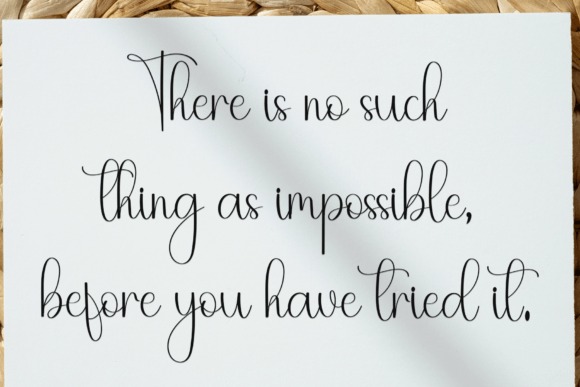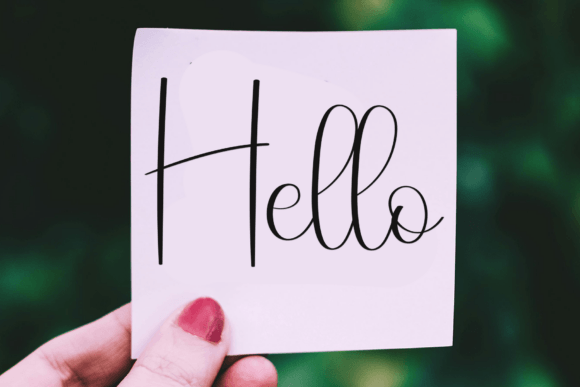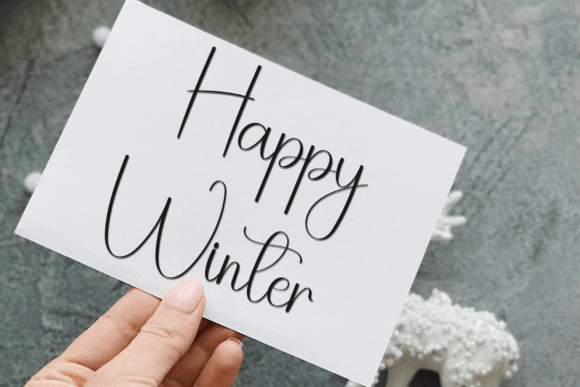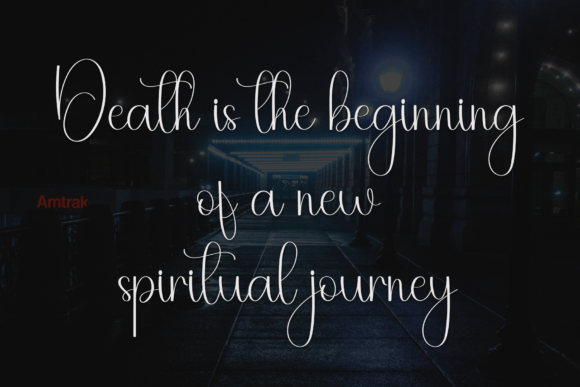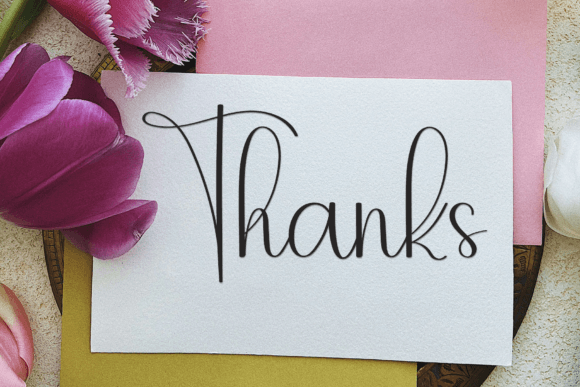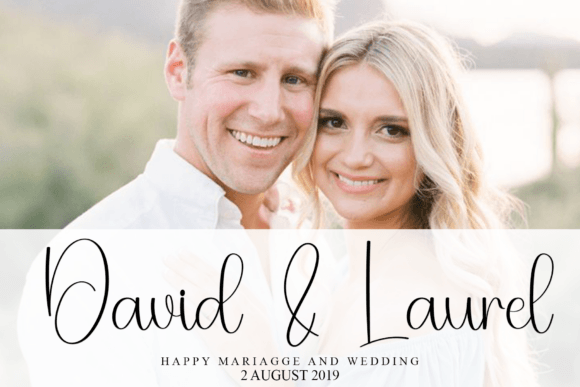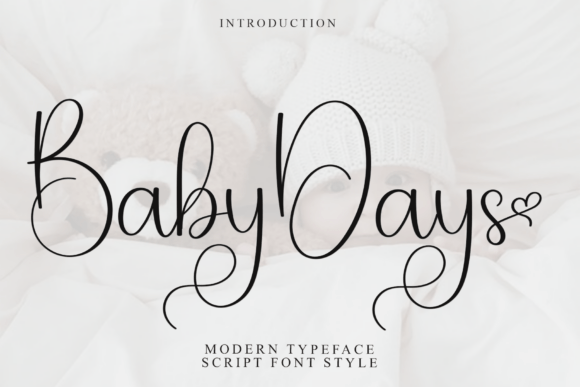
Baby Days Font: The Perfect Addition to Your Design Projects
Are you looking for a font that can add a touch of warmth and playfulness to your design projects? Look no further than Baby Days Font. This adorable, handwritten script font is perfect for designers and crafters who want to create projects that exude a lighthearted and sweet feel.
What is Baby Days Font?
Baby Days Font is a cute, handwritten script font with soft, flowing letters. Its playful and sweet feel makes it an ideal choice for projects that require a personal touch. Whether you’re designing a baby shower invitation, a nursery decor, or a children’s book, Baby Days Font is sure to bring a smile to your audience’s faces.
Characteristics of Baby Days Font
Baby Days Font has several characteristics that make it a standout font:
- Handwritten script: Baby Days Font has a beautiful, handwritten script that gives it a personal and unique feel.
- Soft and flowing letters: The font features soft, flowing letters that are smooth and elegant.
- Playful and sweet feel: Baby Days Font has a playful and sweet feel that makes it perfect for projects that require a lighthearted touch.
- Easy to read: Despite its playful feel, Baby Days Font is easy to read, making it suitable for both headings and body text.
Uses of Baby Days Font
Baby Days Font is a versatile font that can be used in a variety of design projects, including:
- Baby shower invitations: Add a touch of sweetness to your baby shower invitations with Baby Days Font.
- Nursery decor: Use Baby Days Font to create adorable nursery decor, such as wall art, banners, and garlands.
- Children’s books: Baby Days Font is perfect for children’s books, adding a playful and whimsical touch to your story.
- Wedding stationery: Use Baby Days Font to create beautiful wedding stationery, such as invitations, thank-you cards, and place cards.
- DIY projects: Baby Days Font is also great for DIY projects, such as scrapbooking, card making, and crafting.
Why Choose Baby Days Font?
There are many reasons why you should choose Baby Days Font for your design projects:
- Unique and personal: Baby Days Font has a unique and personal feel that sets it apart from other fonts.
- High-quality: Baby Days Font is a high-quality font that is designed to produce crisp and clear results.
Tips for Using Baby Days Font
Here are some tips for using Baby Days Font in your design projects:
- Use it sparingly: Use Baby Days Font sparingly to add a touch of sweetness to your design.
- Pair it with other fonts: Pair Baby Days Font with other fonts to create a unique and interesting combination.
- Have fun: Most importantly, have fun with Baby Days Font and enjoy the process of creating something beautiful.
In conclusion, Baby Days Font is a beautiful, handwritten script font that is perfect for designers and crafters who want to add a touch of warmth and playfulness to their design projects. With its soft, flowing letters and playful feel, Baby Days Font is sure to bring a smile to your audience’s faces. Whether you’re designing a baby shower invitation, a nursery decor, or a children’s book, Baby Days Font is a great choice. So why not give it a try and see the difference it can make in your design projects?